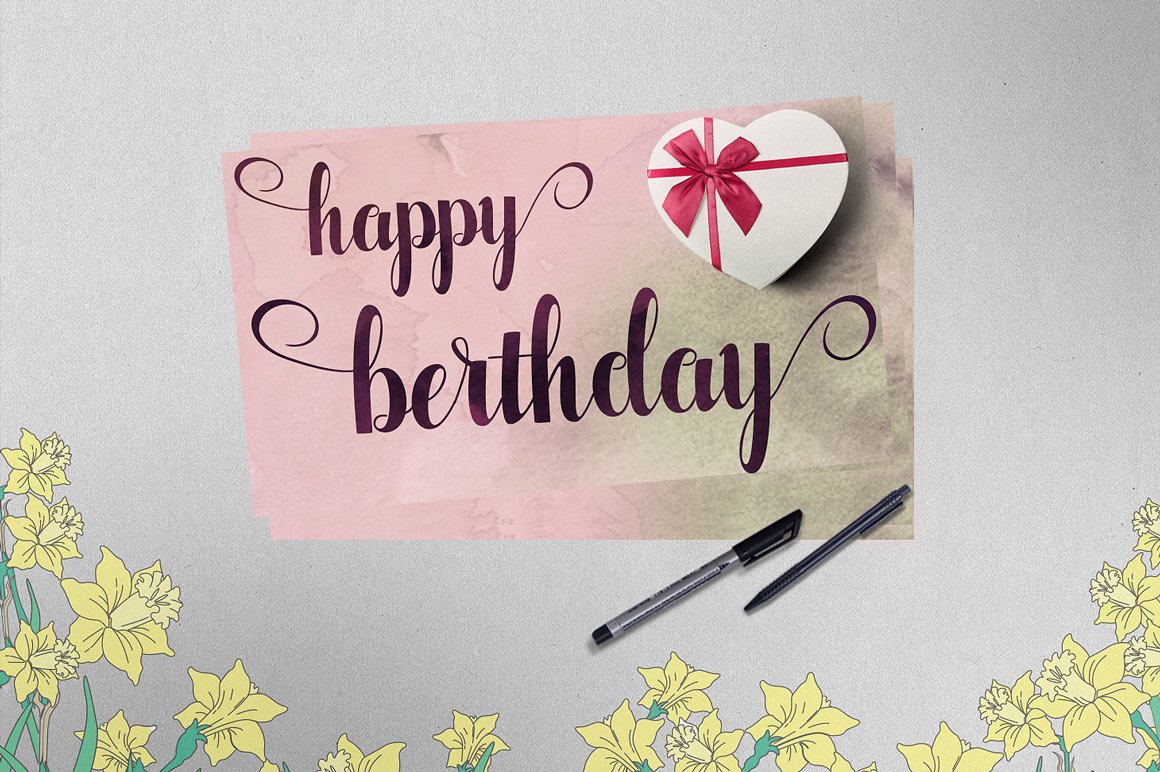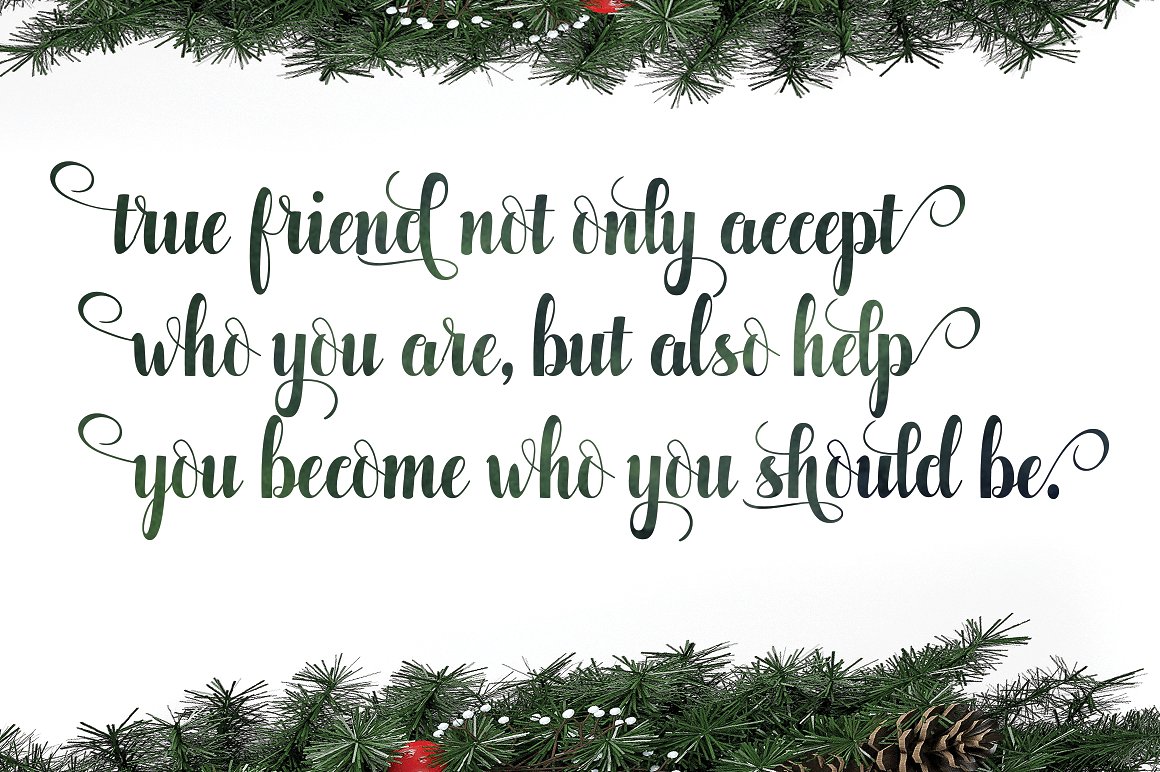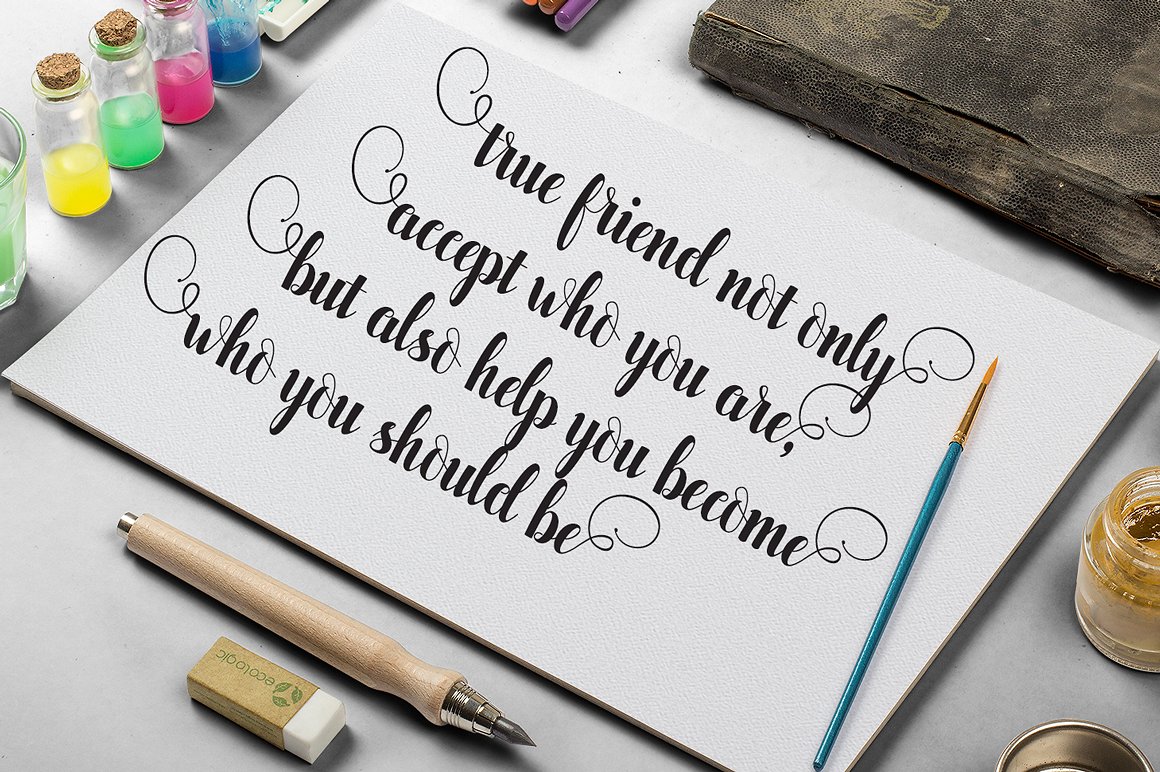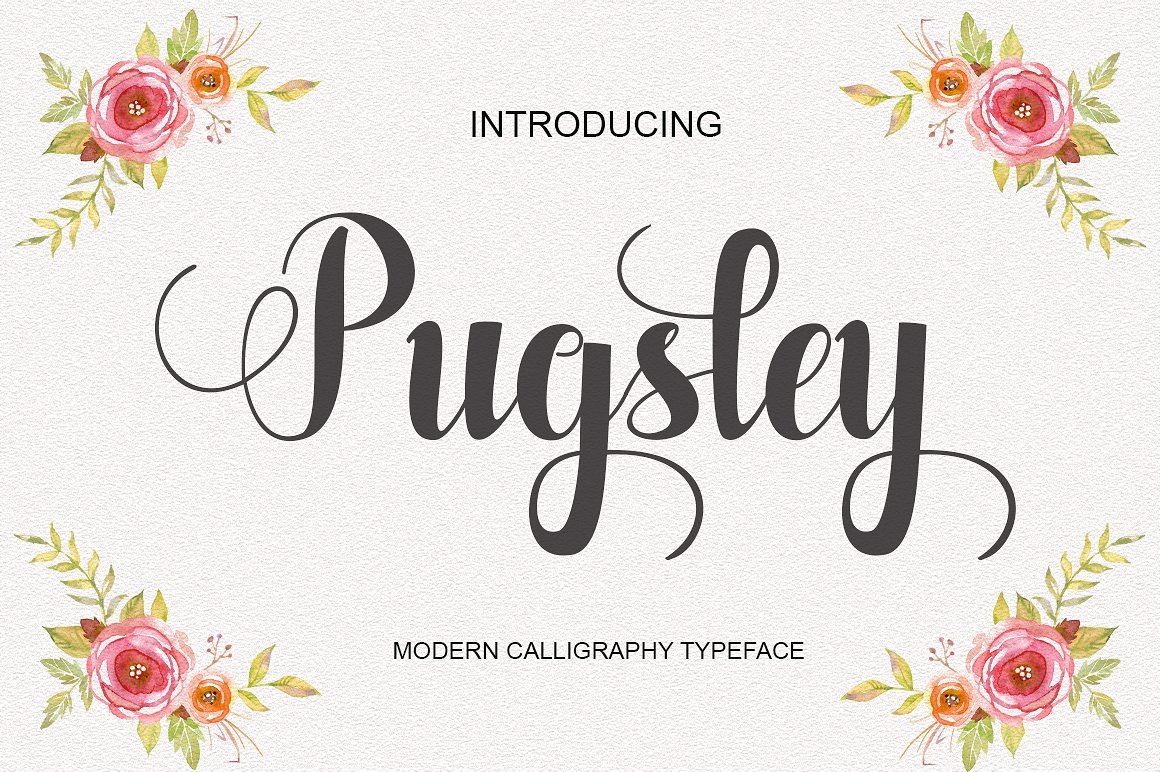
Pugsley Script Font
This font is especially for you if you need to add tenderness to your project. Combine it with other fonts and add style in your project. Introducing Pugsley Font. Pugsley Modern Calligraphy. This font was designed by handwriting, and it has a modern and unique forms of calligraphy, the writing style is very natural. Can be used for various purposes.such as headings, logos, wedding invitation, t-shirt, letterhead, signage, lable, news, posters, badges etc.